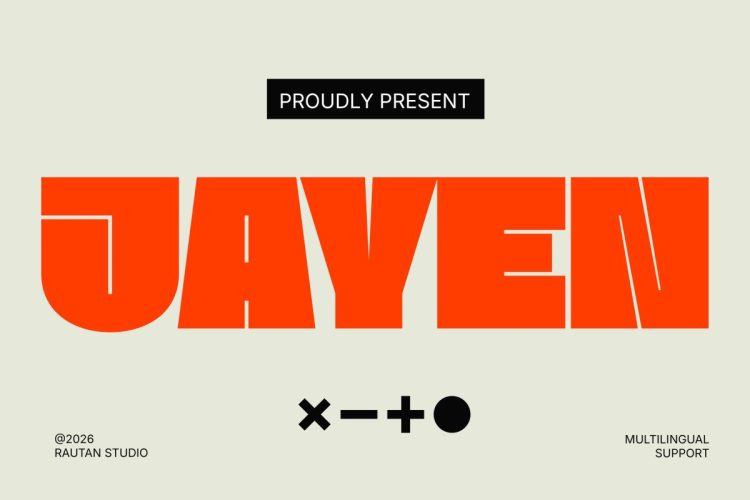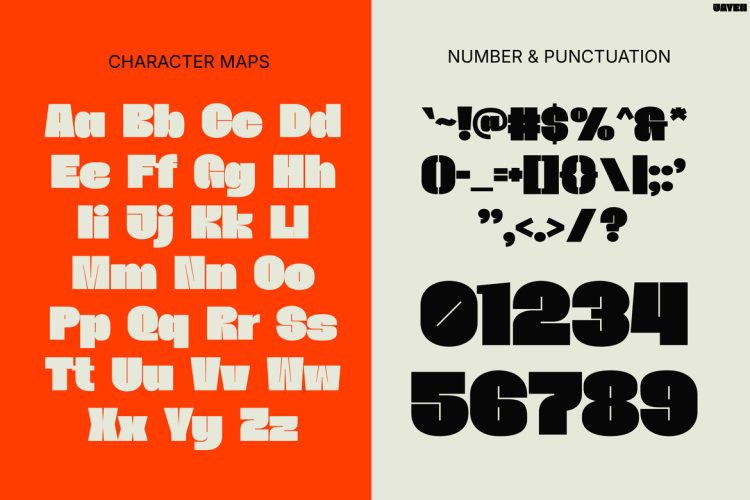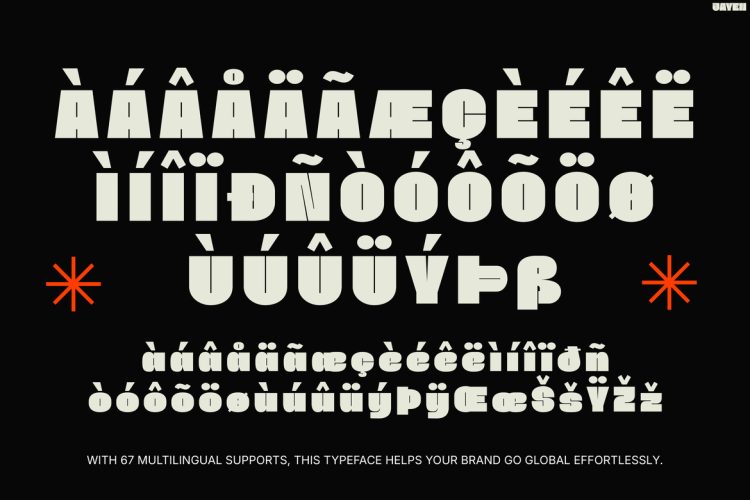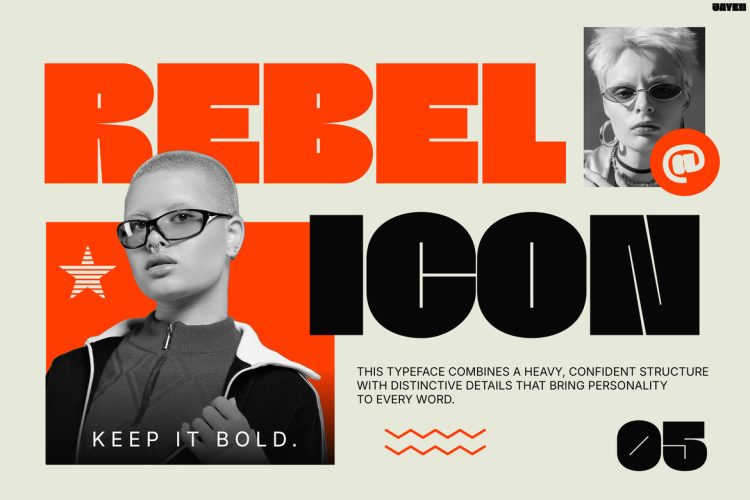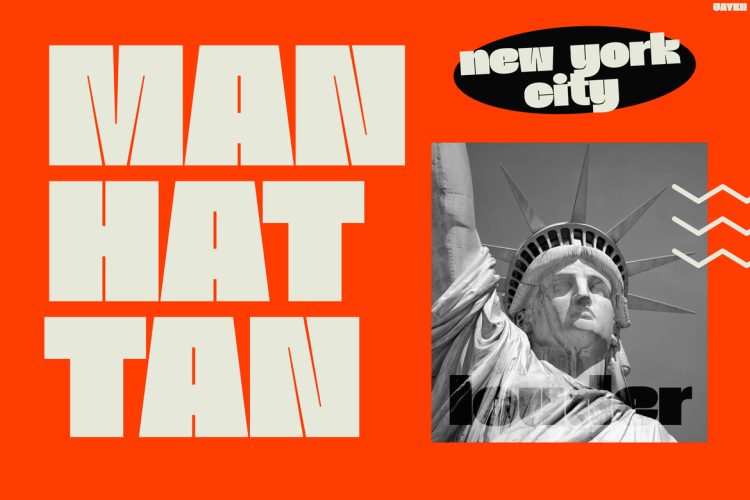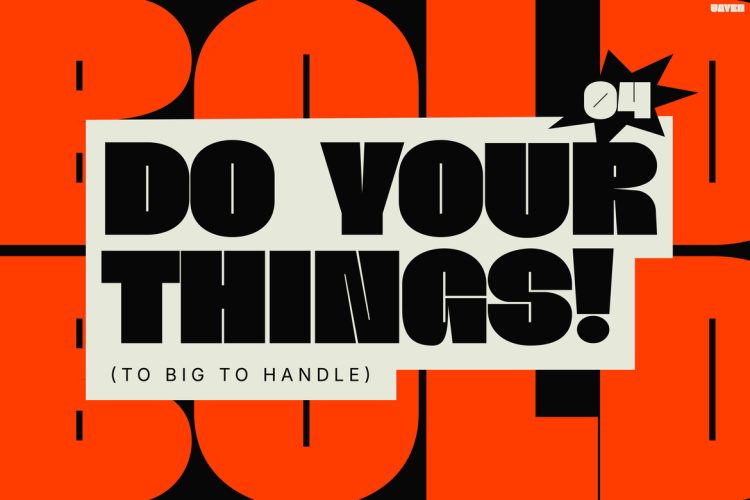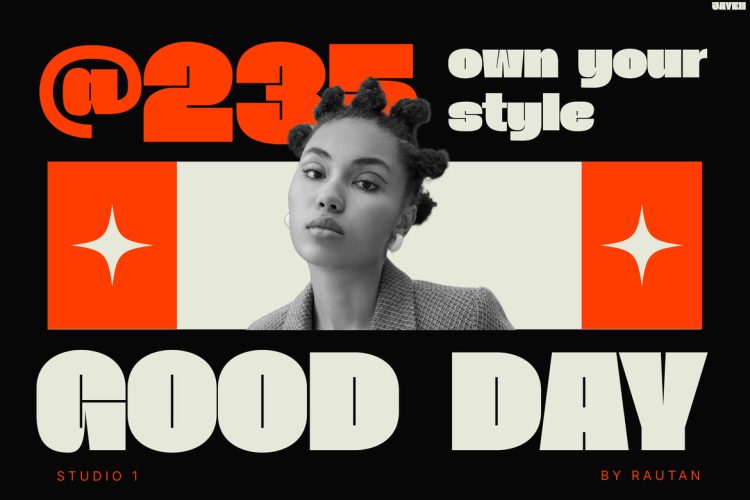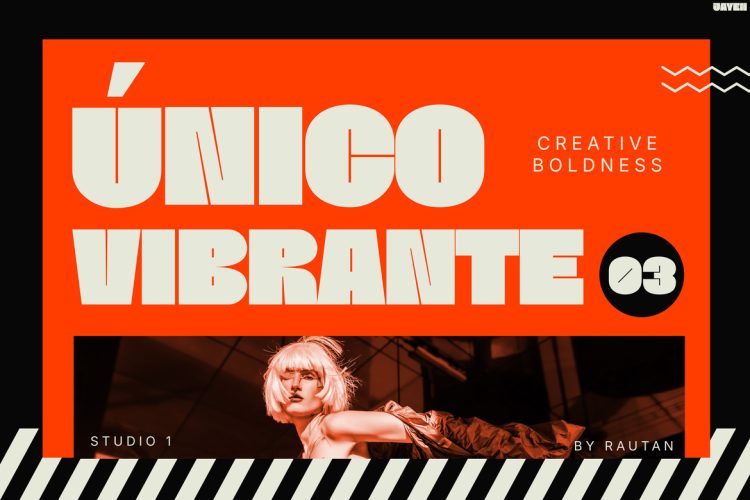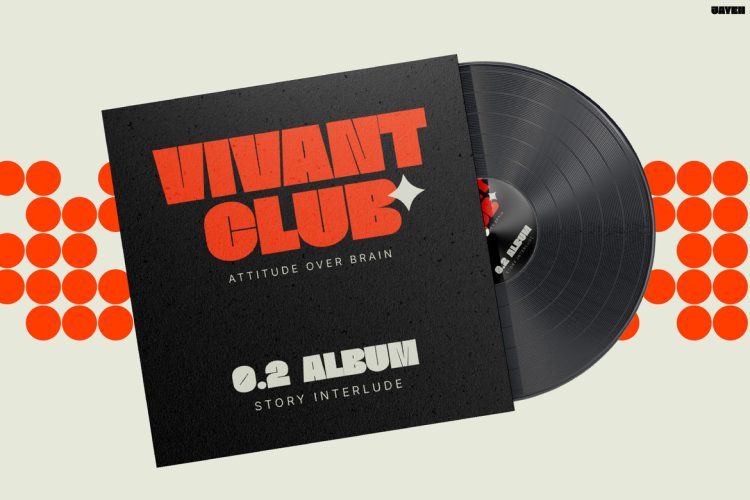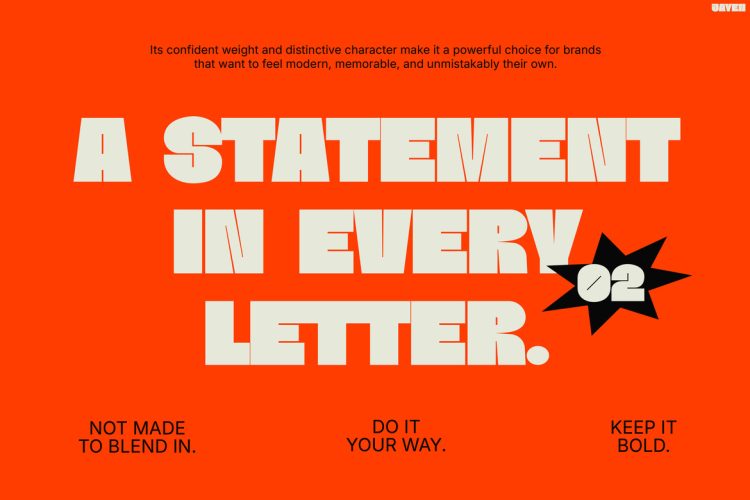
JAYEN โ Bold, Funky & Creative Display Font
Modern Font JAYEN is a bold display font with a striking retro-modern attitude. From the first glance, its chunky letterforms create a strong and confident visual impact. Moreover, the smooth curves and solid shapes give JAYEN a playful yet powerful personality. Meanwhile, its compact structure helps headlines look bold without feeling messy. As a result, every word can become a graphic element on its own. In addition, JAYEN brings a fresh creative edge to modern typography. Best of all, it includes Multilingual Support for 67 Languages, so your designs can reach a wider audience.
Whether you are creating a fashion campaign or an artistic poster, JAYEN adds instant attitude. Furthermore, it works great for logos, branding, album covers, music artwork, posters, magazines, T-shirts, merchandise, social media, advertising, and editorial designs. Additionally, its expressive style fits creative studios, musicians, designers, photographers, and bold lifestyle brands. Because of its heavy and distinctive appearance, Modern Font JAYEN is especially effective for headlines, short statements, and attention-grabbing layouts.
Make Every Letter Hit!
Finally, JAYEN turns ordinary typography into a bold visual statement. So, if you want chunky lettering with a funky and confident vibe, this font is ready to bring the energy. Grabย JAYEN today and make every letter stand out!